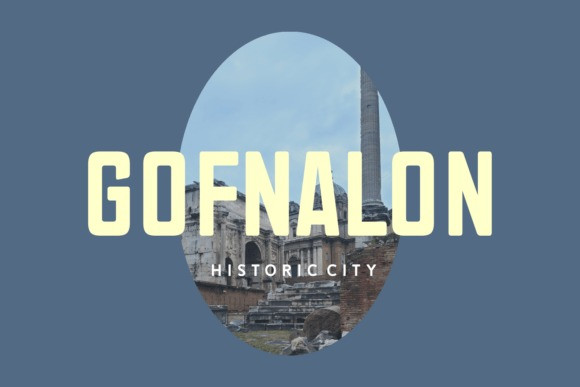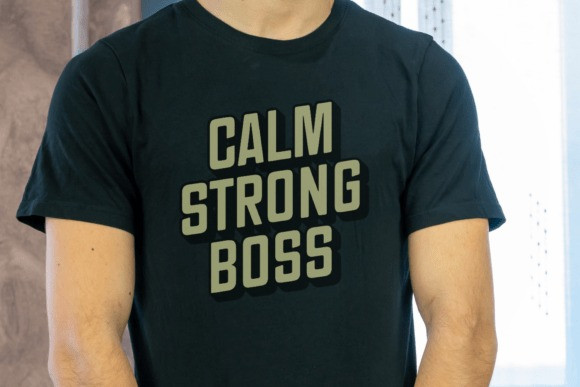
Oldest Vintage Font
Oldest Vintage Font a sans serif font. The rugged and expansive scenery complements the font’s strong, clean, and impactful character, making it suitable for headlines and branding with a classic, adventurous feel.